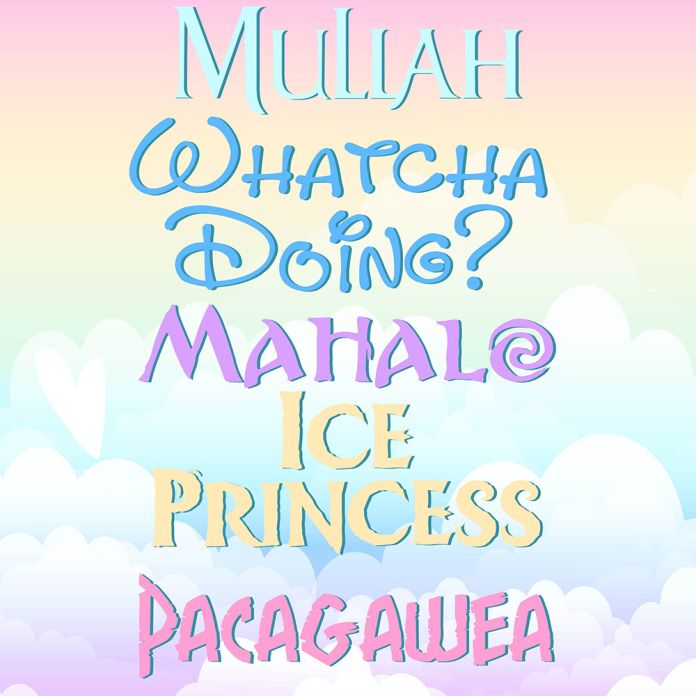
This hand-crafted font bundle features five hand-crafted font that are most popular with wanna-be princesses!
Hand-crafted fonts can be either formal or informal, and they can be used for a variety of purposes. Some of the characteristics of handwritten fonts include: The letters are not perfectly uniform in size or shape. There may be slight variations in the spacing between letters and words. The font may have a "wiggly" or "squiggly" appearance. The font may be difficult to read at small sizes. Handwritten fonts can be a great way to add a casual touch to your designs. They can also be used to create a sense of nostalgia or whimsy. However, it is important to choose a handwritten font that is appropriate for the project you are working on. A formal handwritten font may not be appropriate for a casual invitation, while an informal handwritten font may not be appropriate for a corporate document.